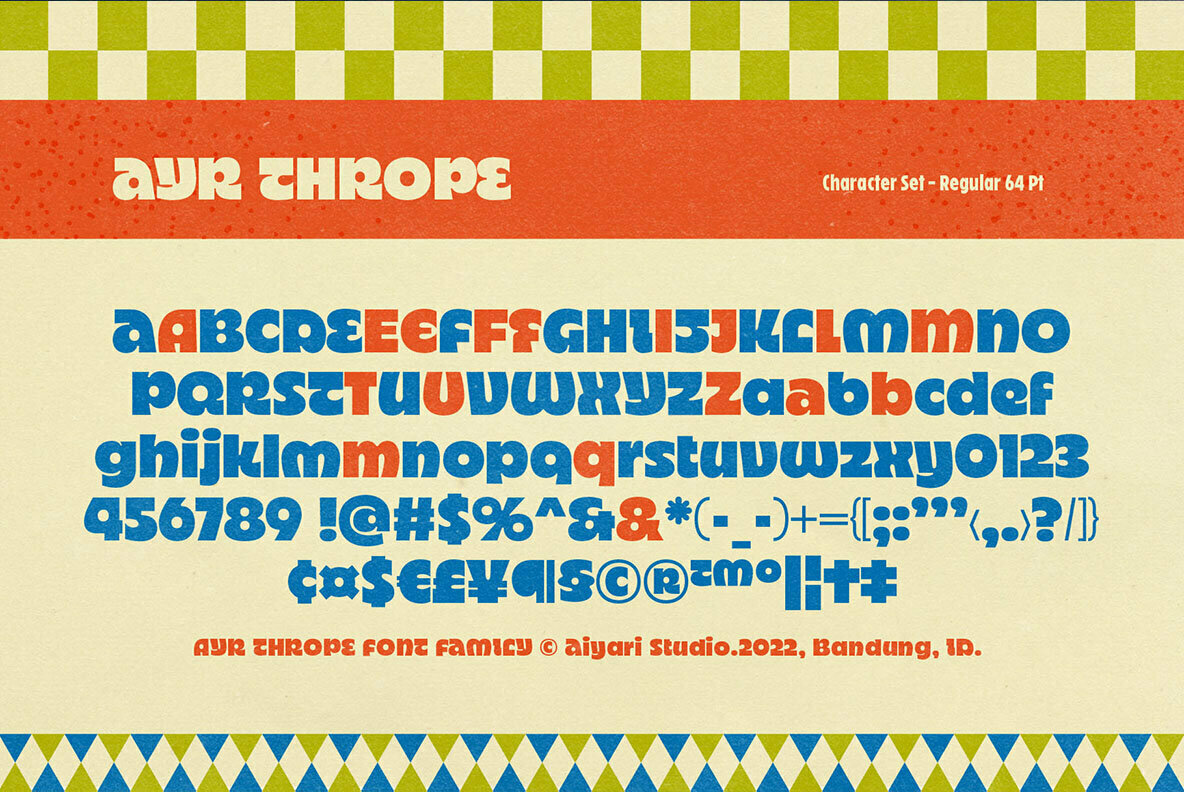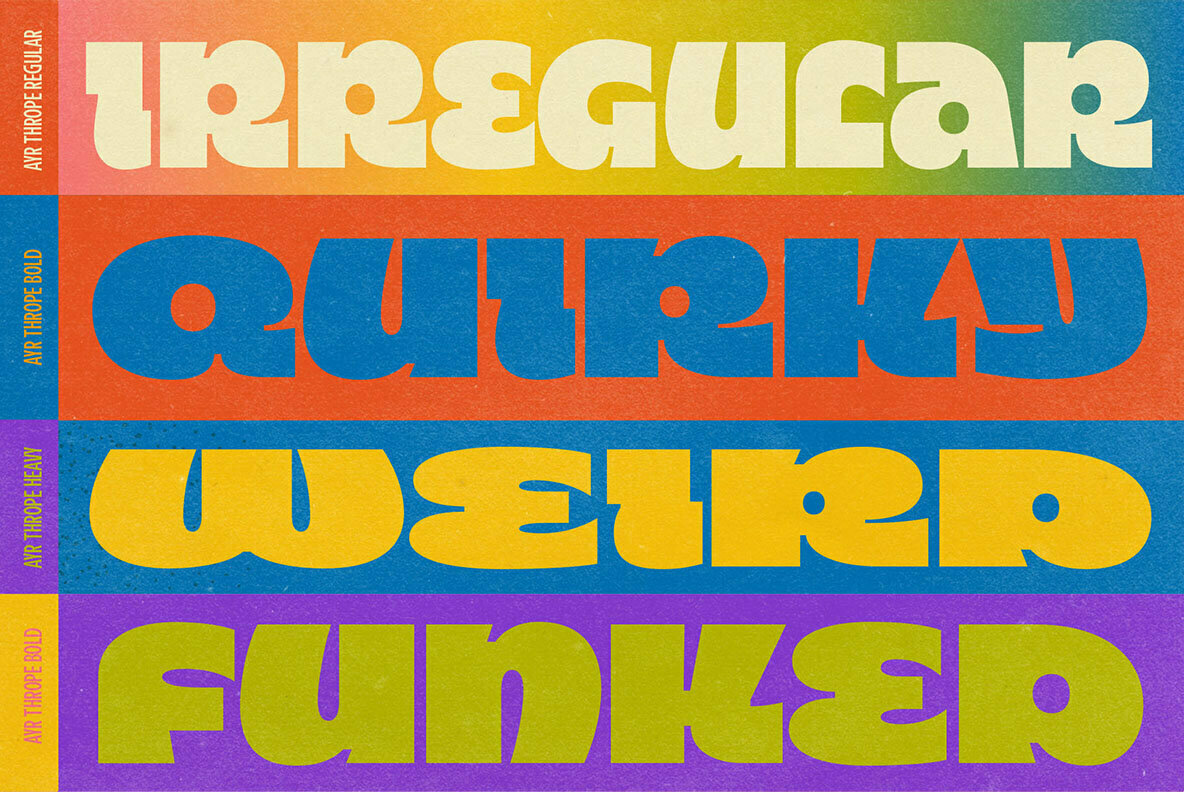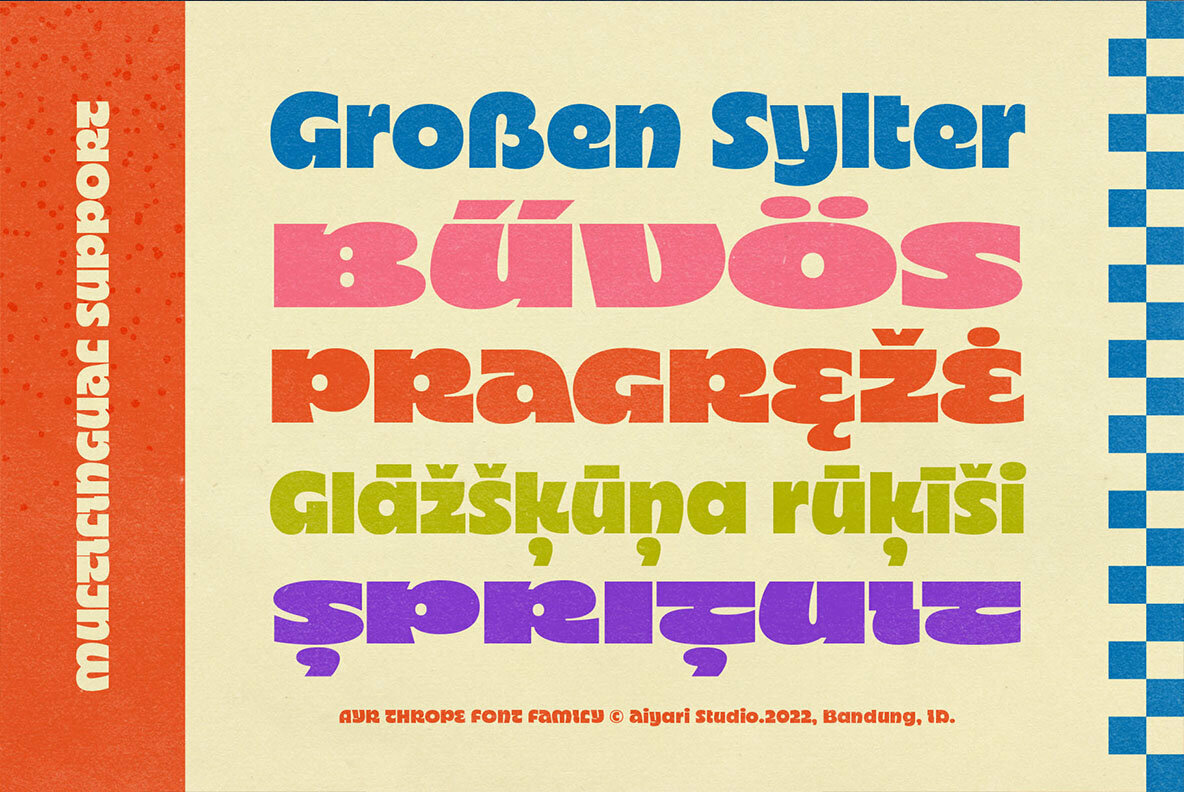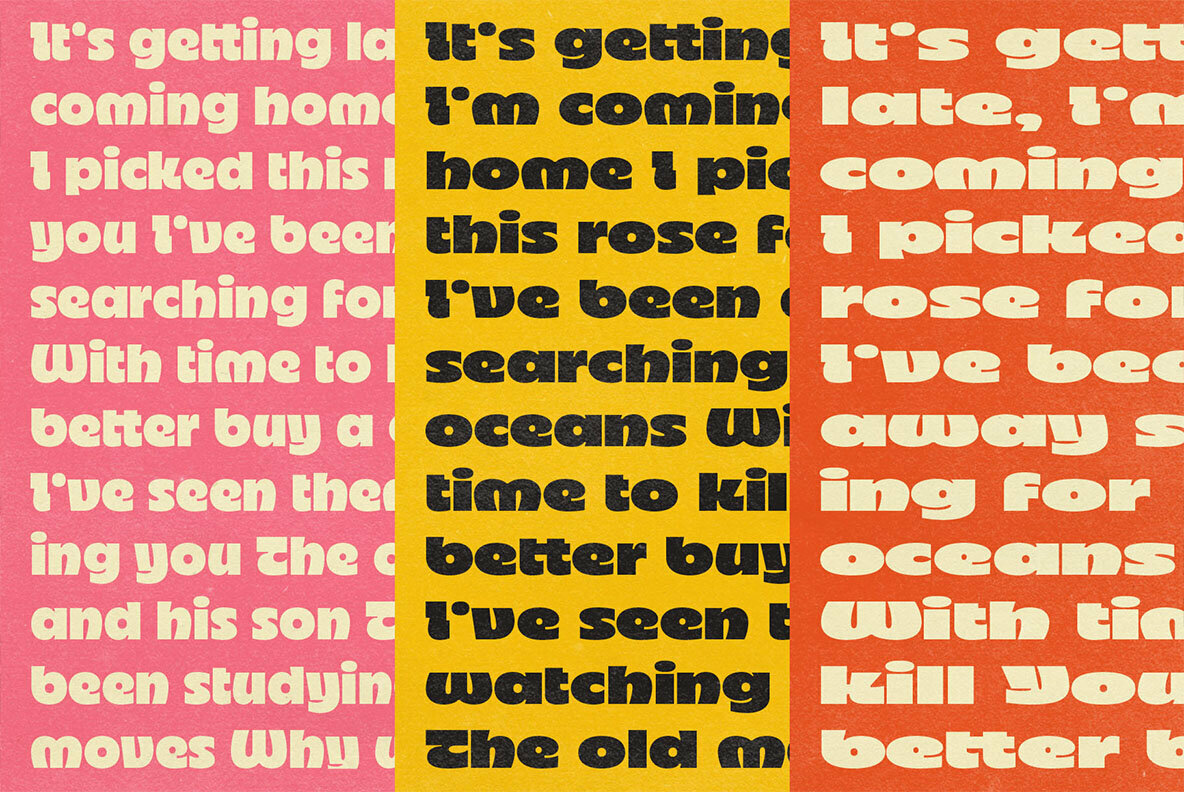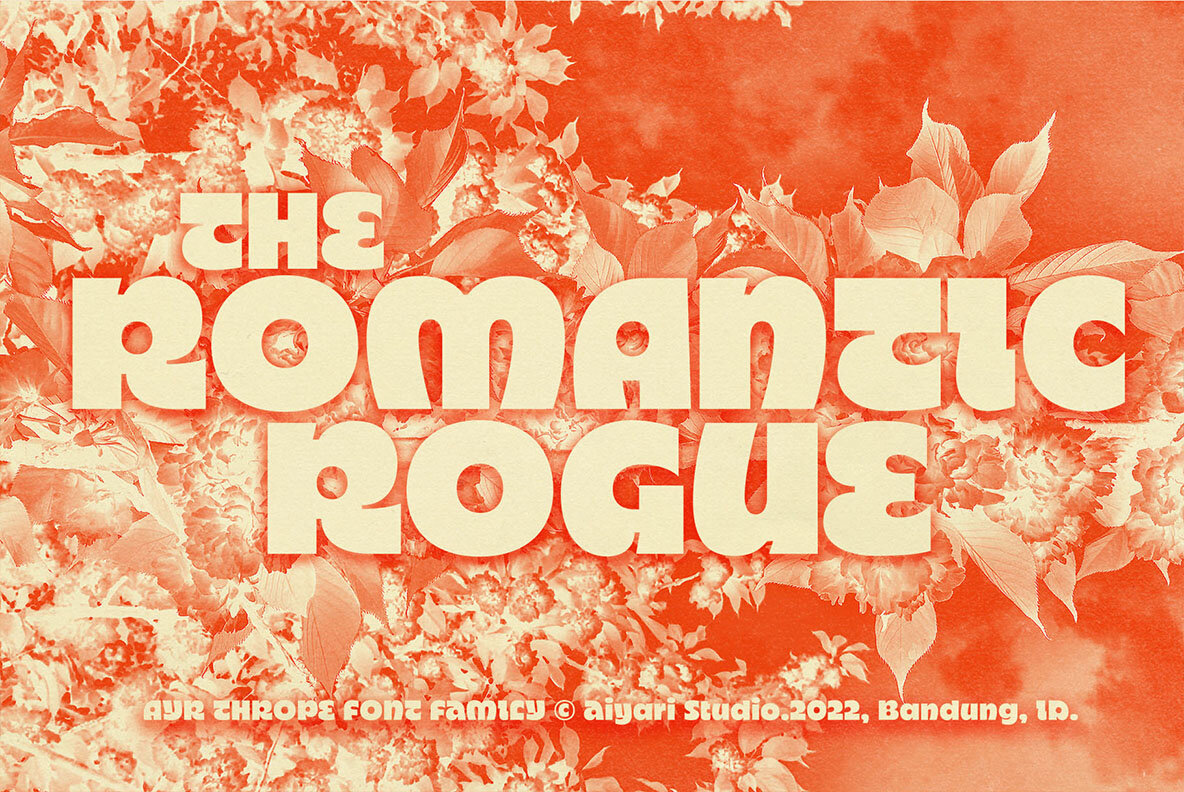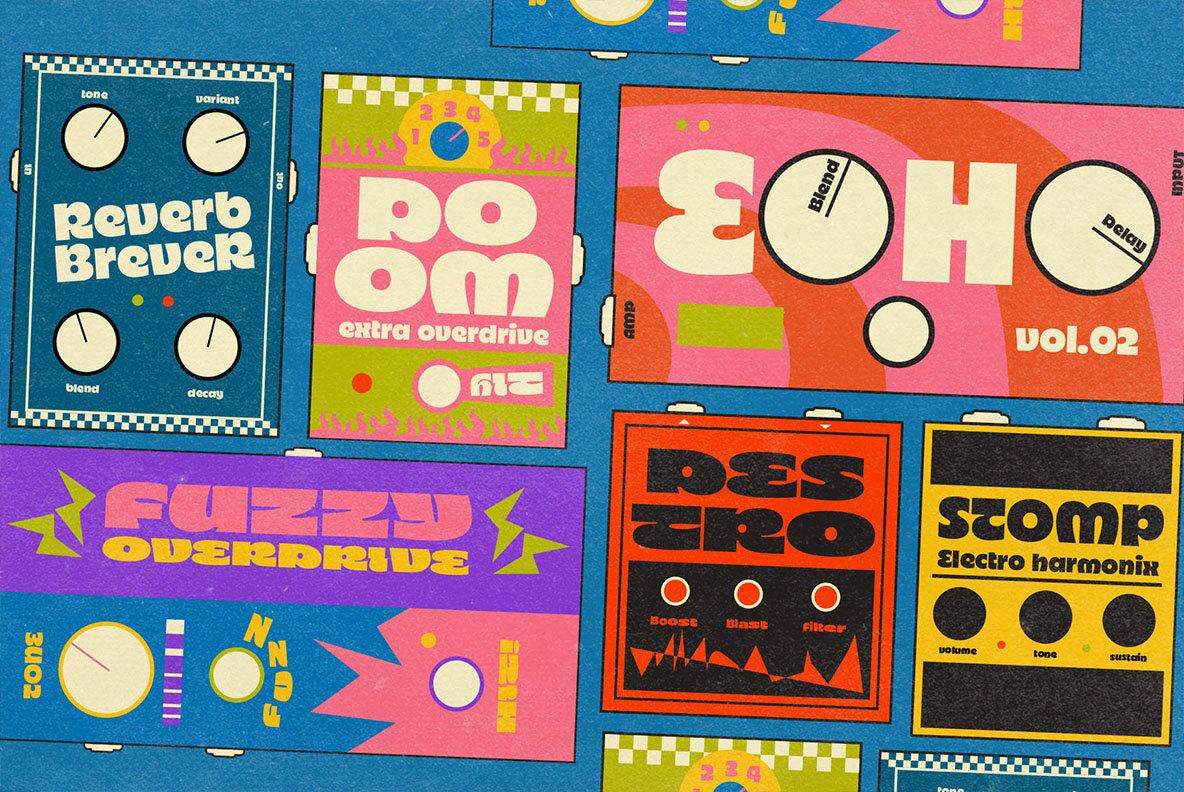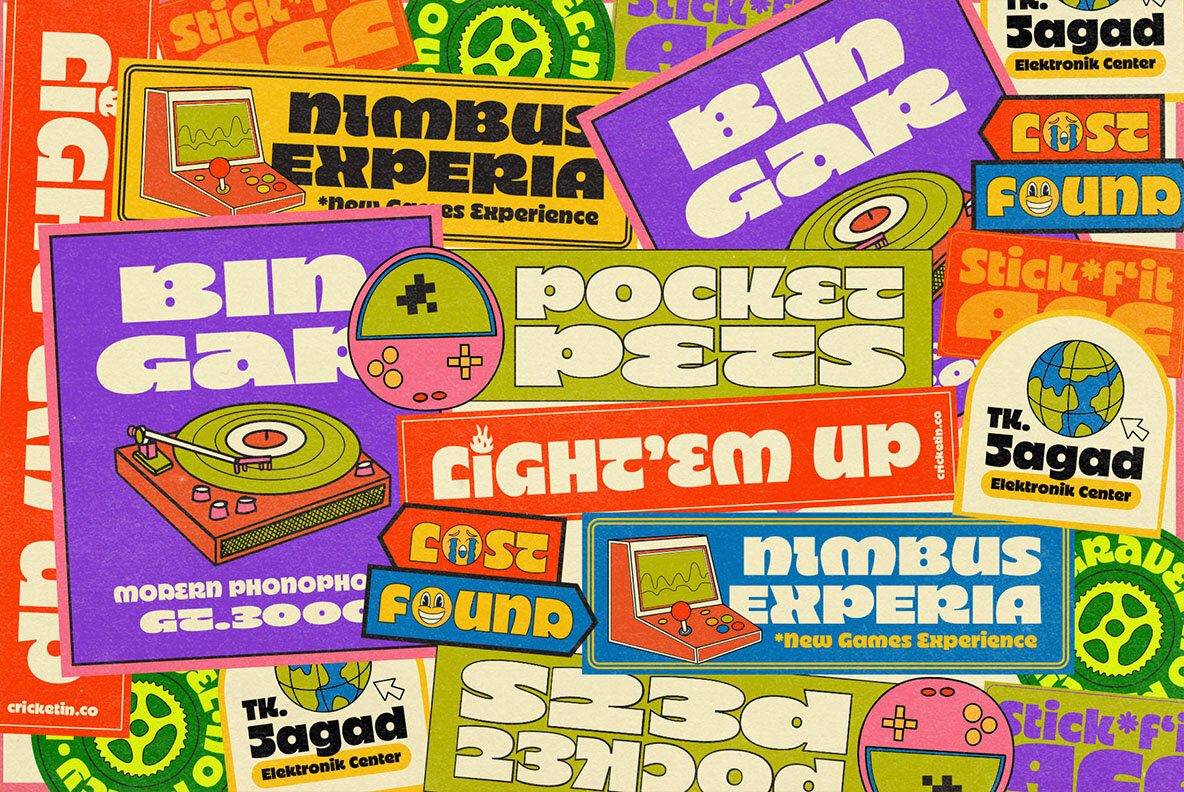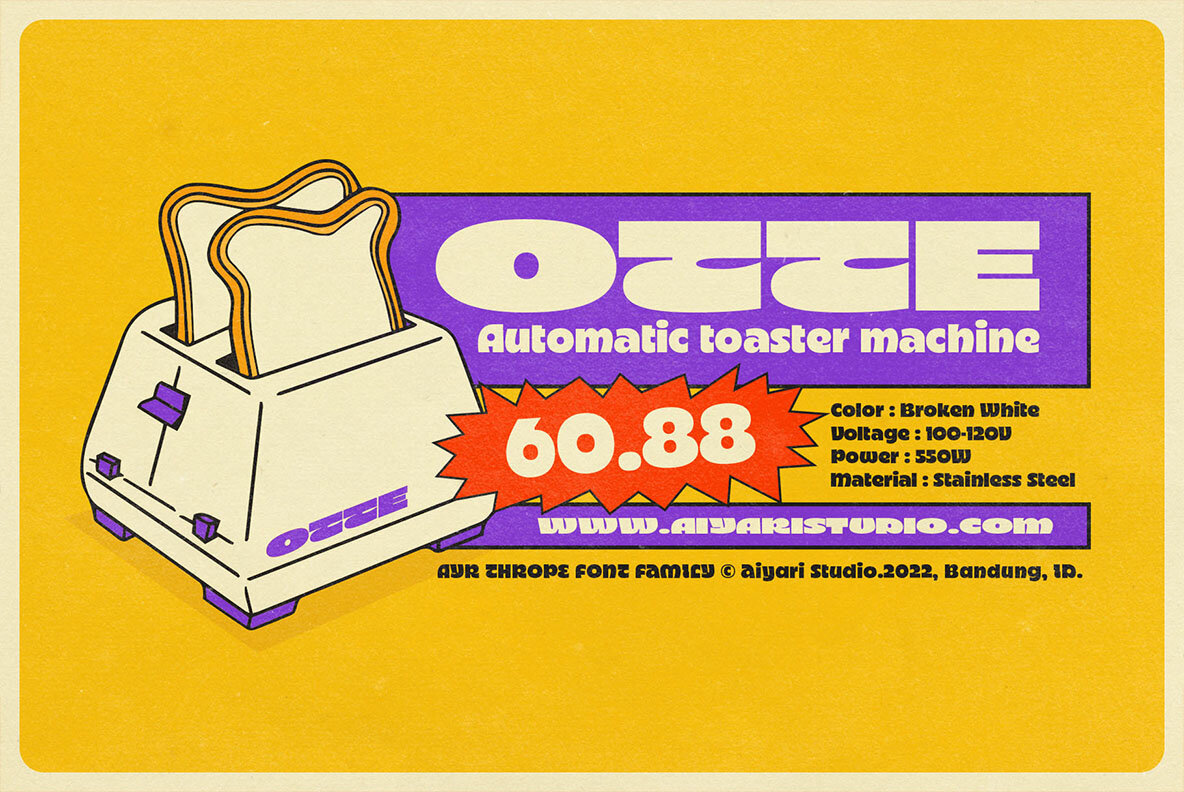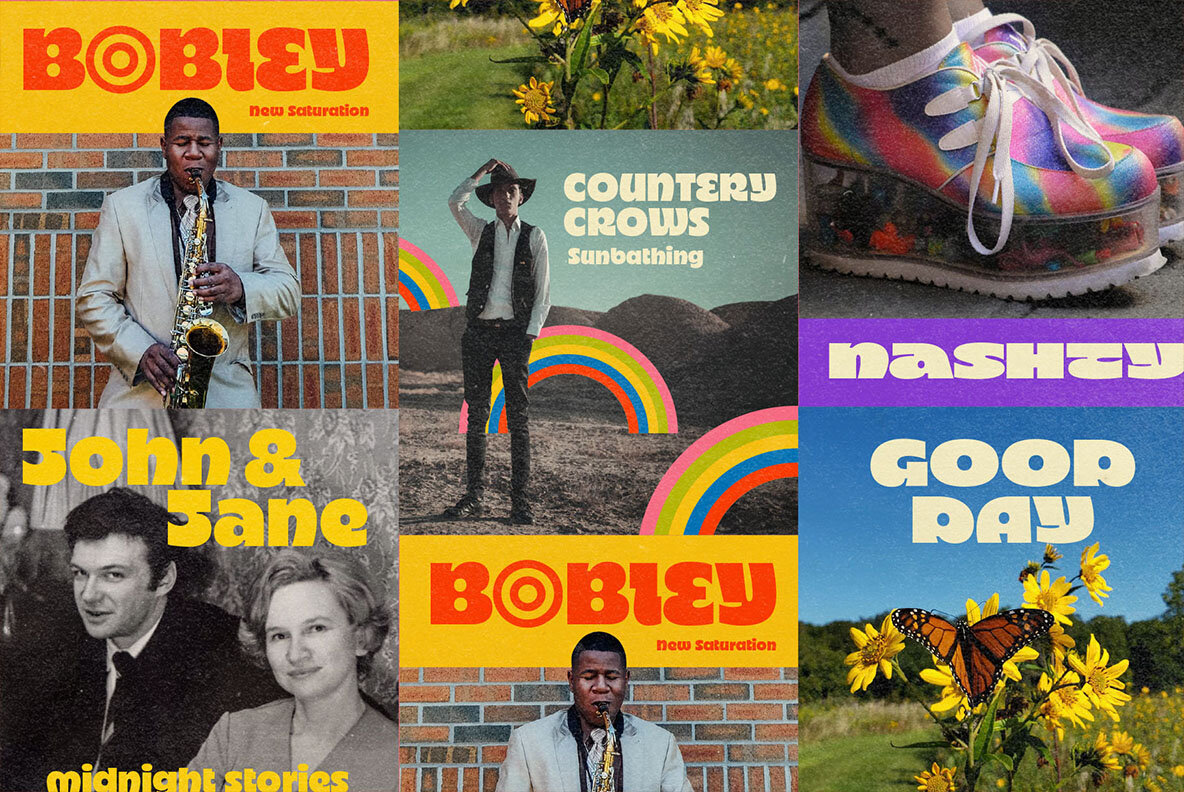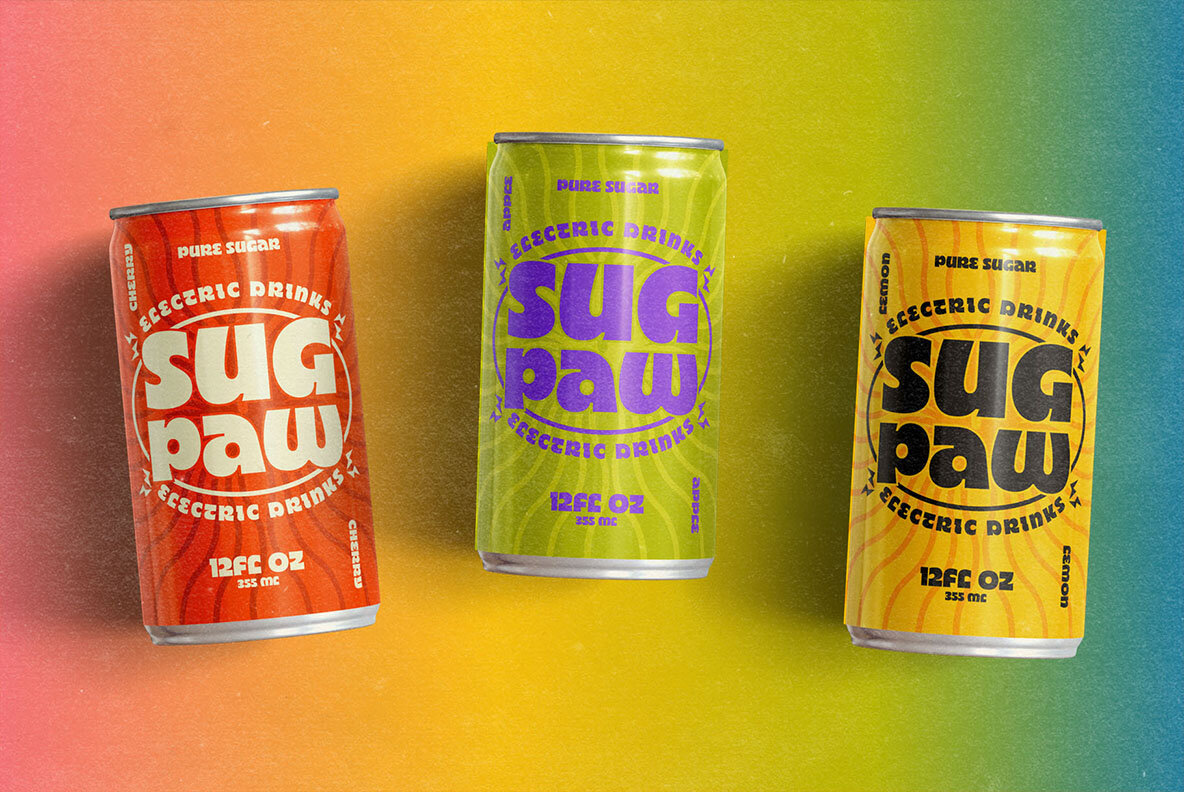
Thrope: Retro Display Font Family with Geometric Flair
Diving into the world of retro aesthetics, Thrope offers a distinctive font family inspired by 60s and 70s pop culture. With a nod to the classic Motter Ombra typeface, Thrope combines irregular display elements and geometric shapes to bring a bold, vintage vibe to any project.
• Three Styles – Available in regular, bold, and heavy weights.
• Stylistic Alternates – Features four stylistic alternates for varied design options.
• Ligatures – Includes creative ligatures to enhance text flow.
Thrope is ideal for logotypes, headlines, captions, signage, and posters, offering designers a versatile tool to create standout graphics.